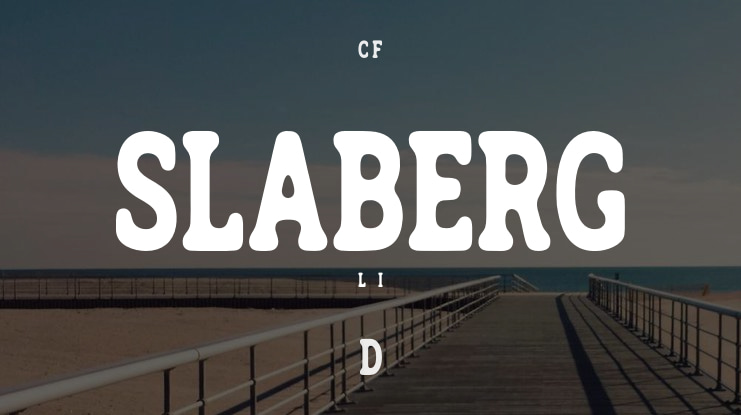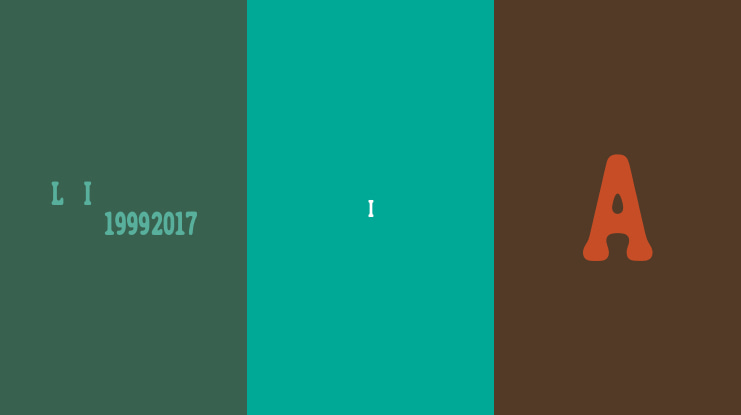
SLABERG Font Family
SLABERG is a bold letterpress-inspired slab serif with vintage charm and premium detailing—ideal for packaging, signage, and classic branding.